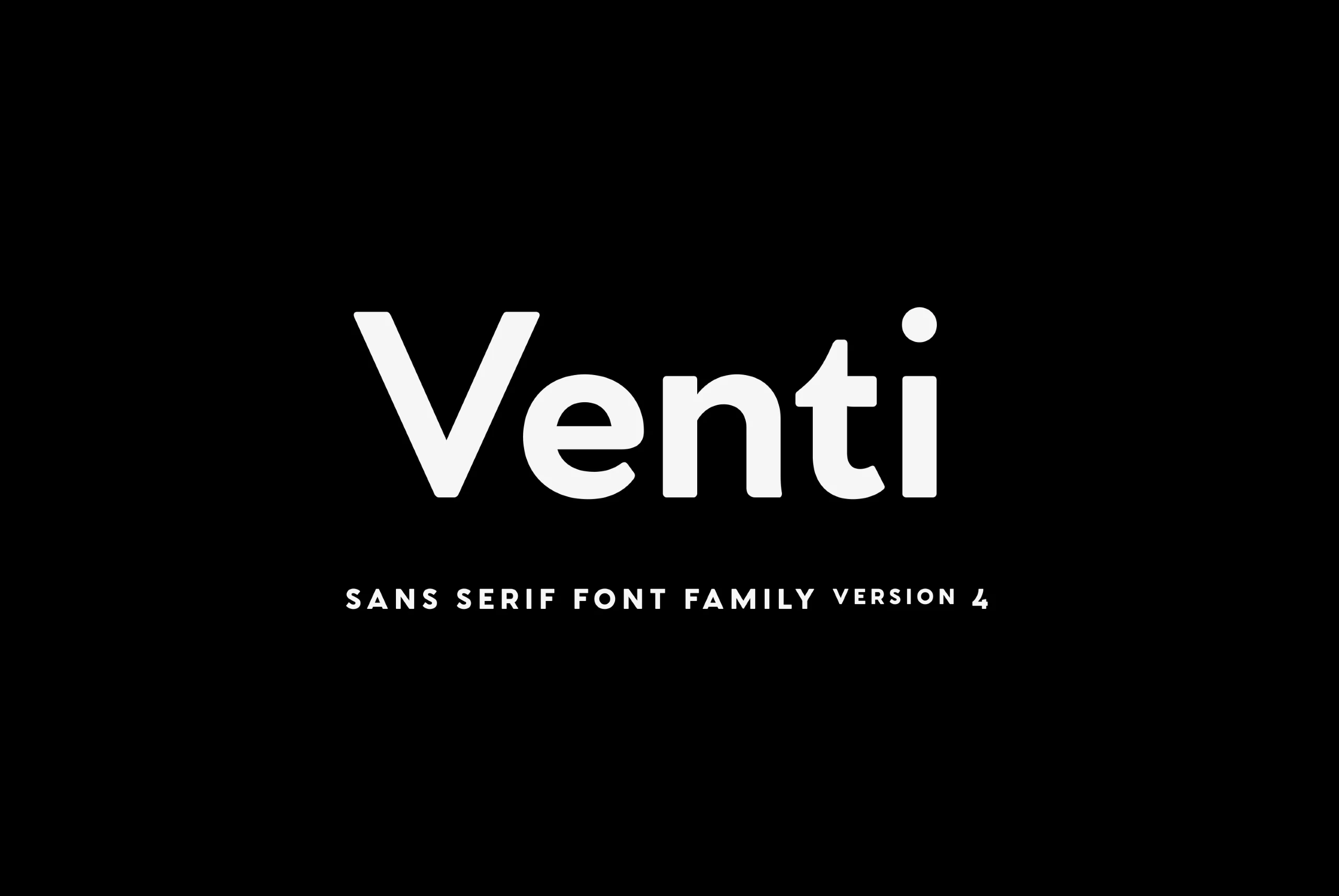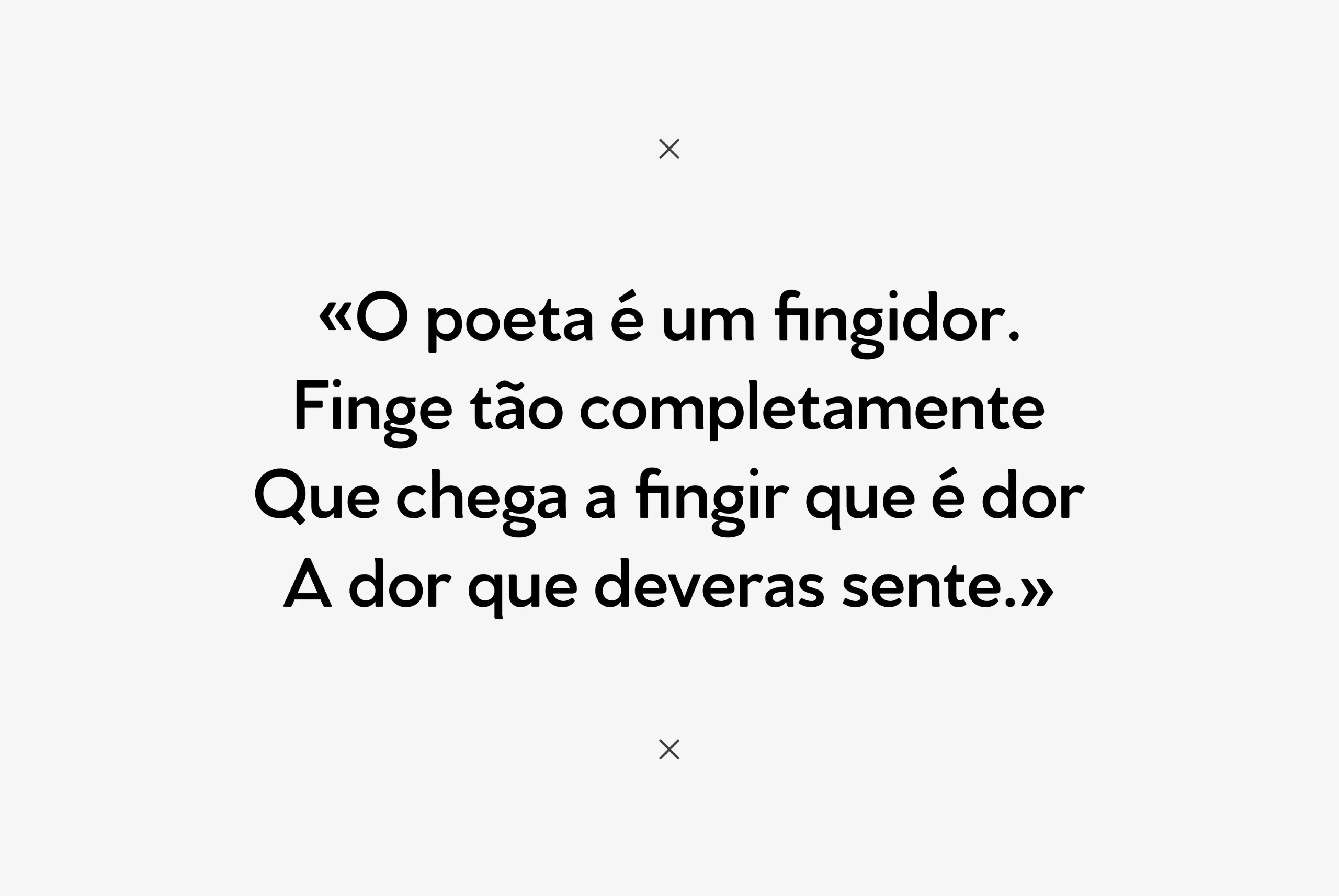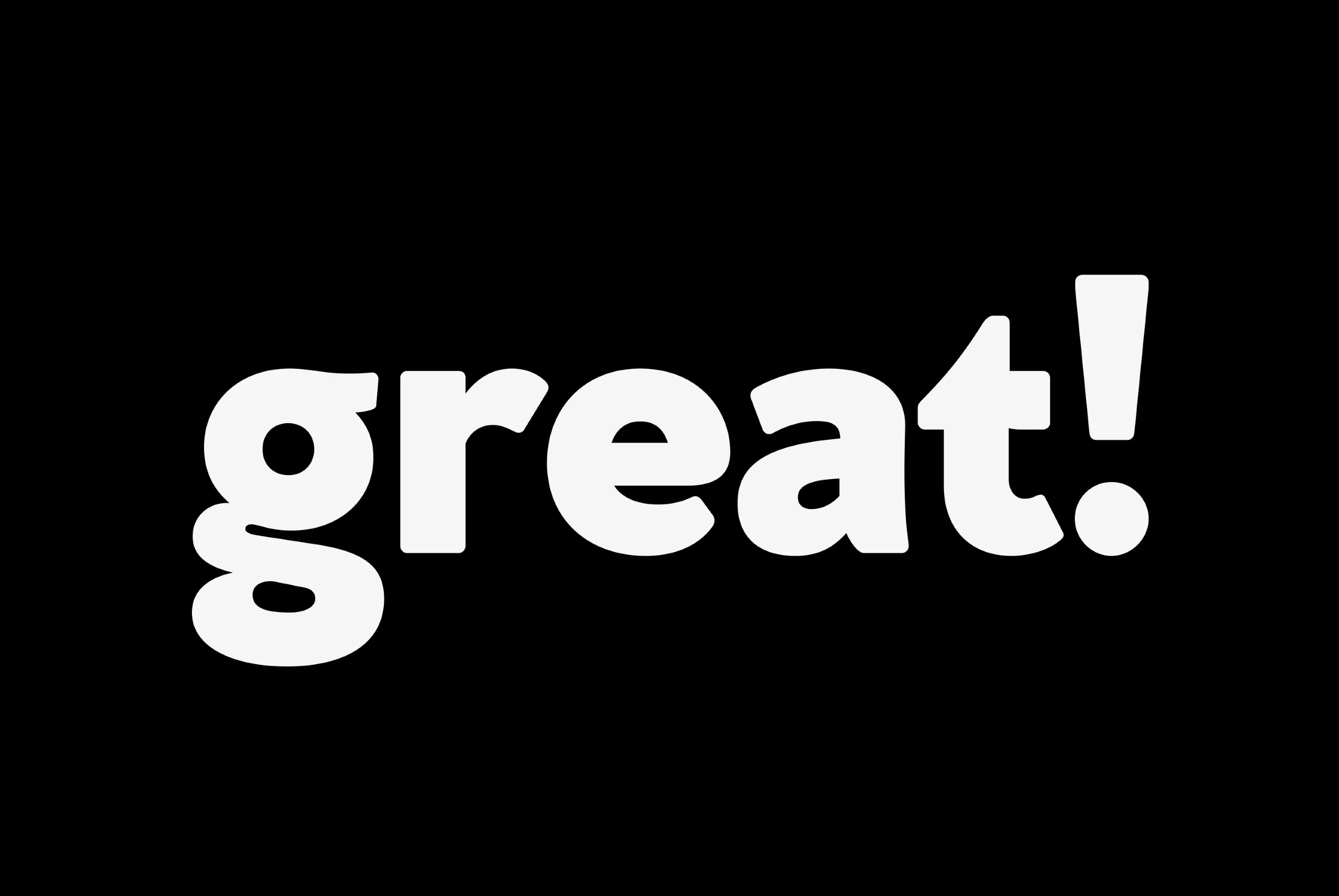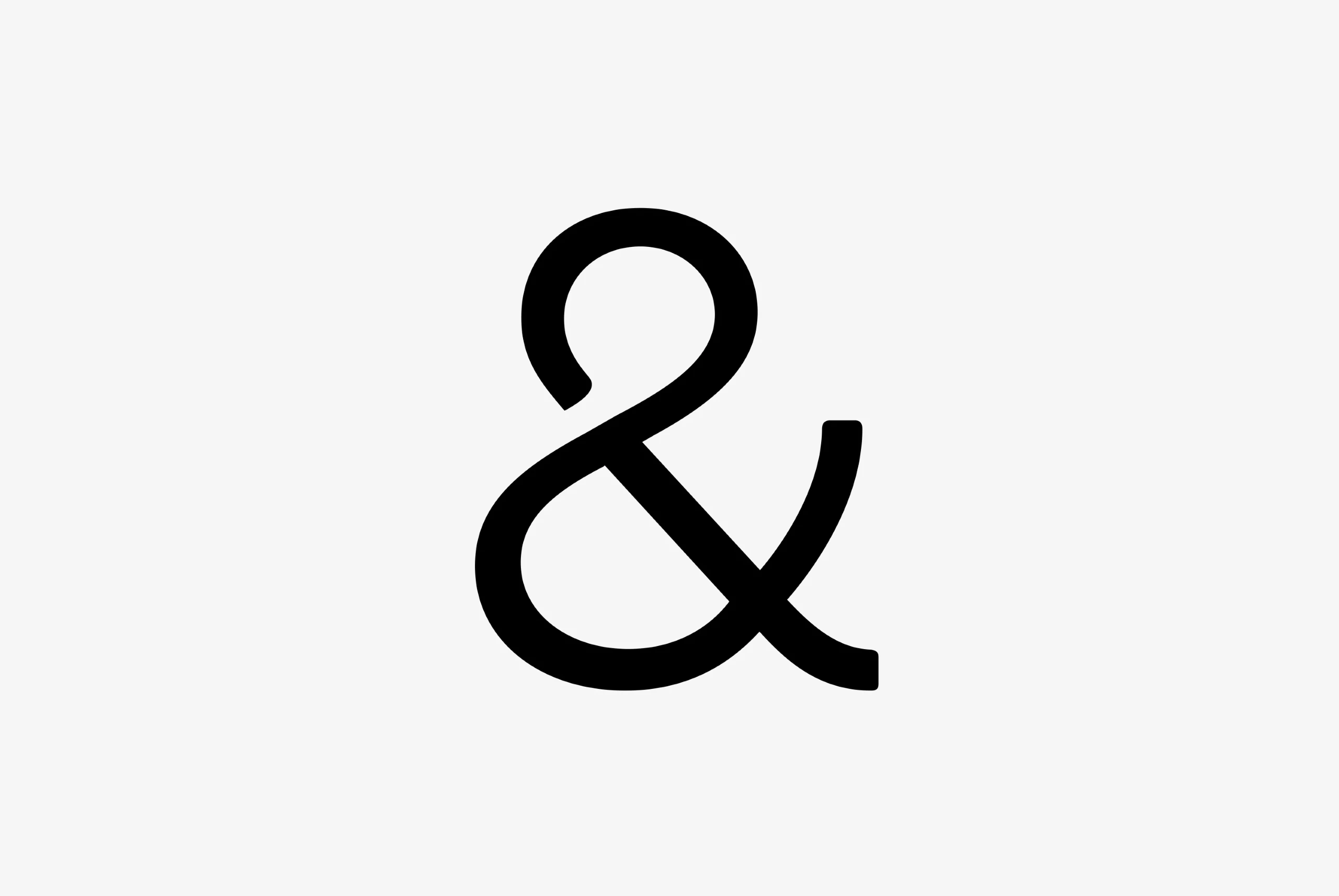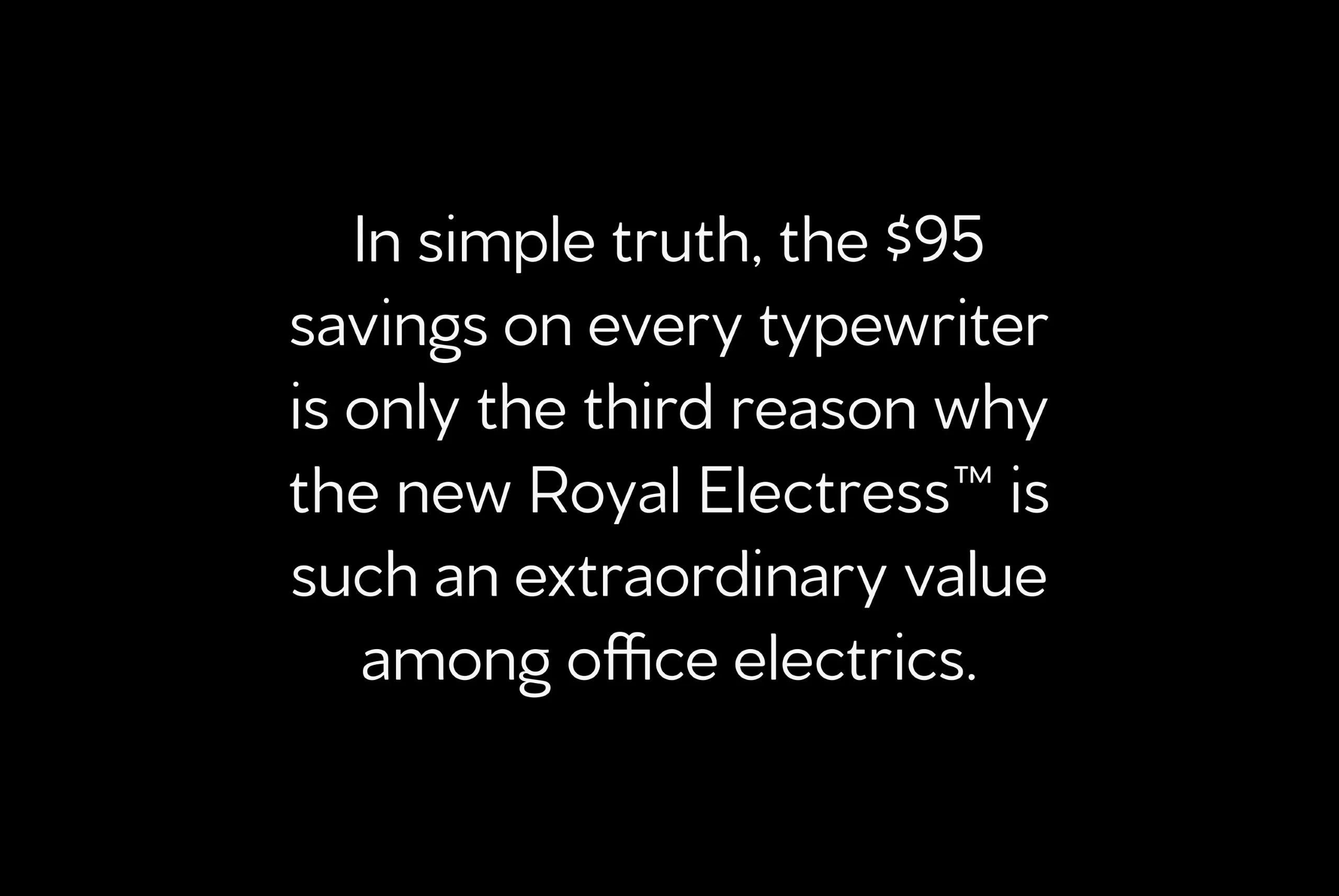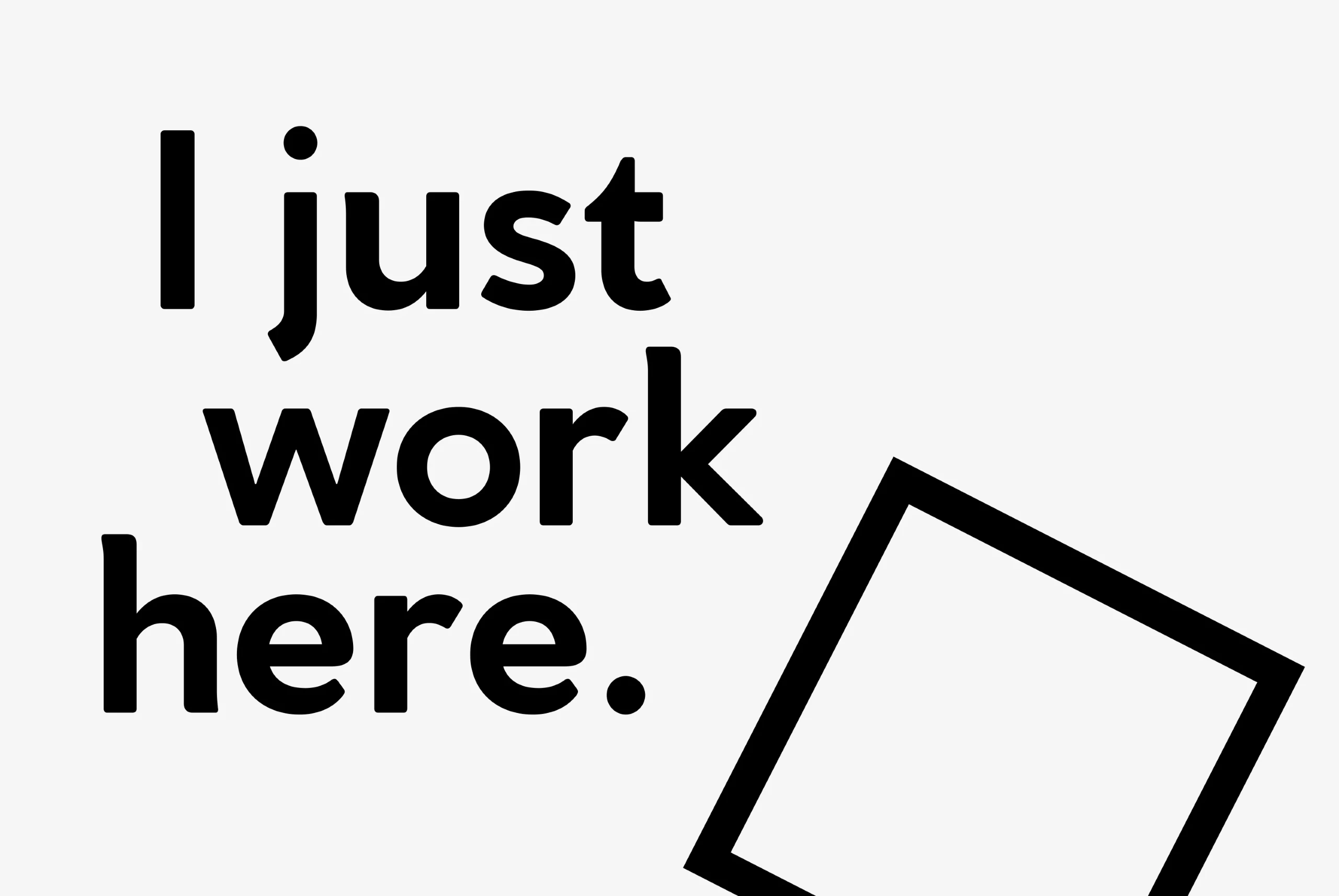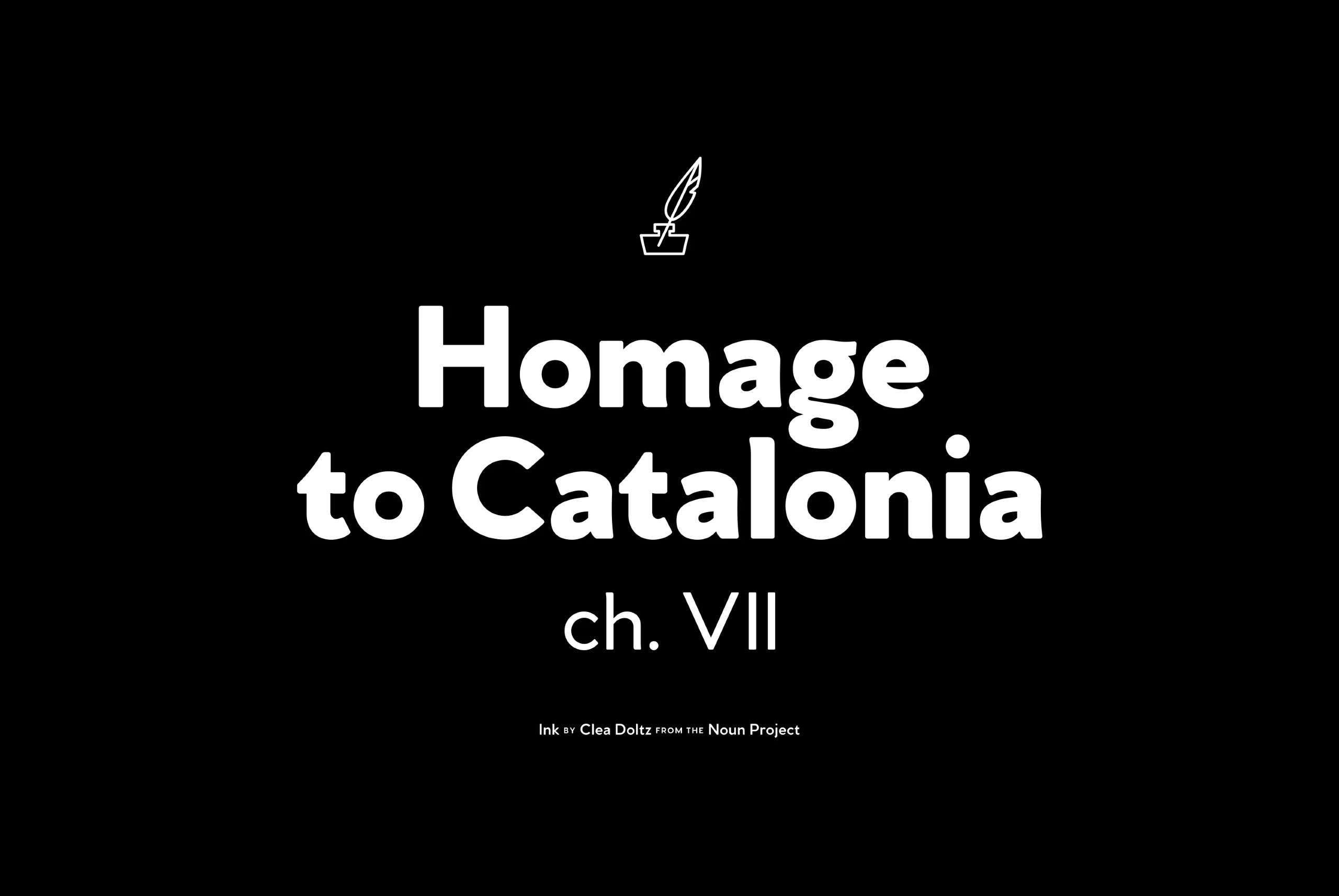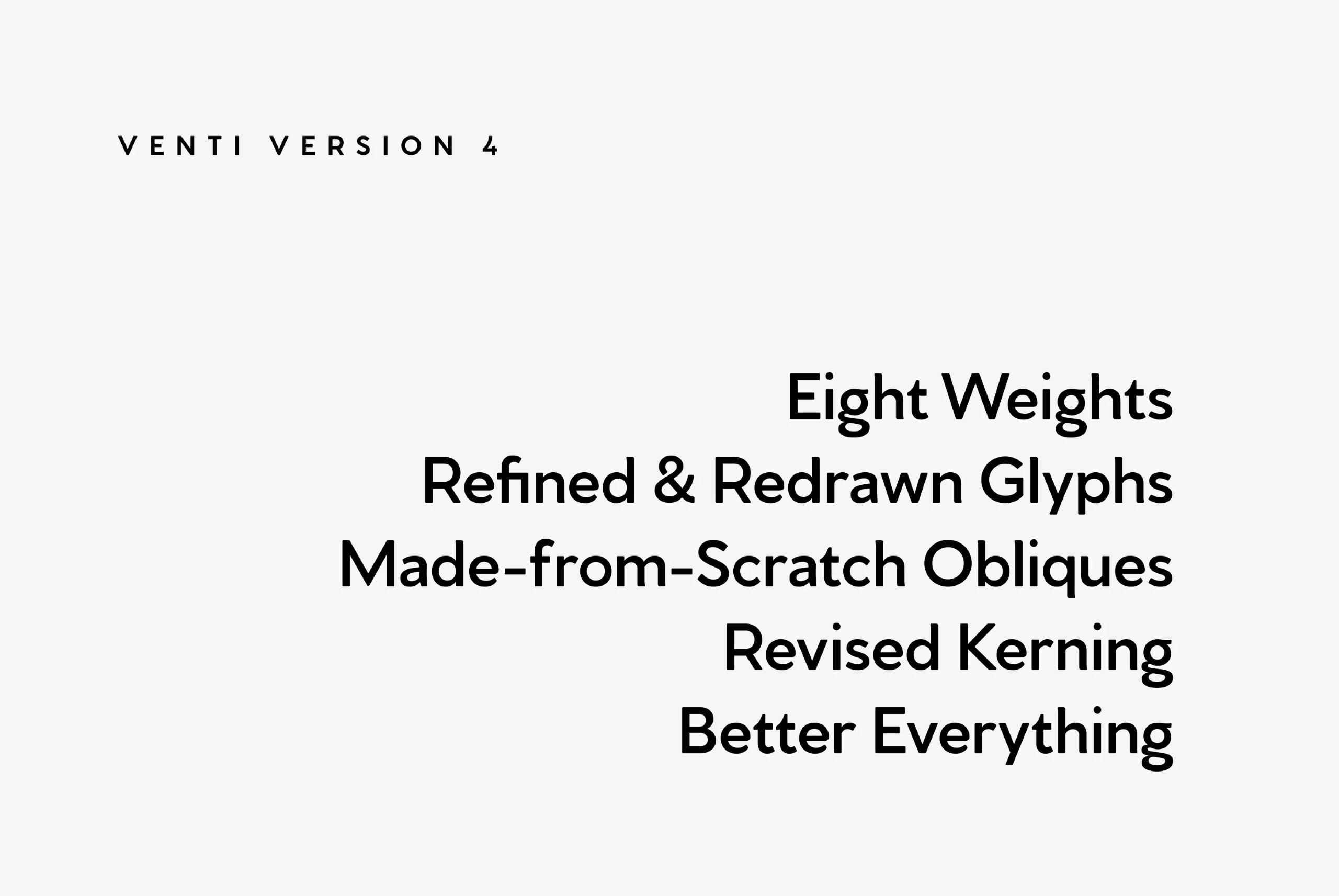
Venti
Venti Font Family
Venti is a geometric font family with a warm, engaging character. Inviting and versatile, Venti’s subtle human overtones are well suited to headlines, logos, and short text.
eight Weights in Latin & Cyrillic Script
Venti font by Connary Fagen Fonts — the word “Venti” in a sans serif font above the words “SANS SERIF FONT FAMILY VERSION 4” Venti font by Connary Fagen Fonts — the sans-serif upright text “O poeta é um fingidor. Finge tão completamente Que chega a fingir que é dor A dor que deveras sente.” enclosed in guillemets, with two small ‘x’ marks above and below the text. Venti font by Connary Fagen Fonts — the word “great!” in white, sans-serif, slightly oblique letters on a black background Venti font by Connary Fagen Fonts — a large, upright ampersand with a sans-serif, monoline appearance Venti font by Connary Fagen Fonts — a paragraph of sans serif text, including the words “In simple truth, the $95 savings on every typewriter is only the third reason why the new Royal Electress is such an extraordinary value among office electrics.” Venti font by Connary Fagen Fonts — the sans serif words “I just work here.” in three lines, with a black outline of a square rotated at an angle below and to the right. Venti font by Connary Fagen Fonts — the words “Homage to Catalonia” in large sans-serif letters, “ch. VII” in smaller sans-serif letters, and “Ink by Clea Doltz from the Noun Project” in small sans-serif letters, with a quill and inkwell icon above. Venti font by Connary Fagen Fonts — the words “VENTI VERSION 4” in the upper left and a list of sans serif phrases in the lower right, including “Eight Weights” and “Better Everything”